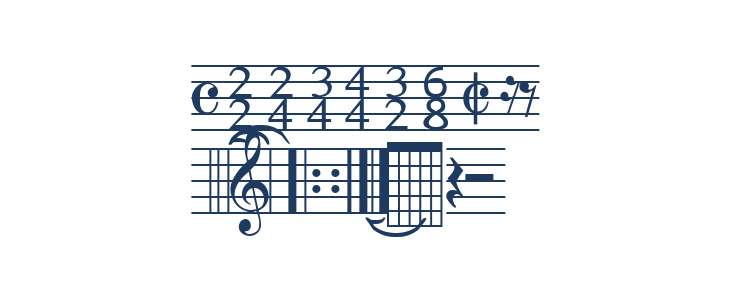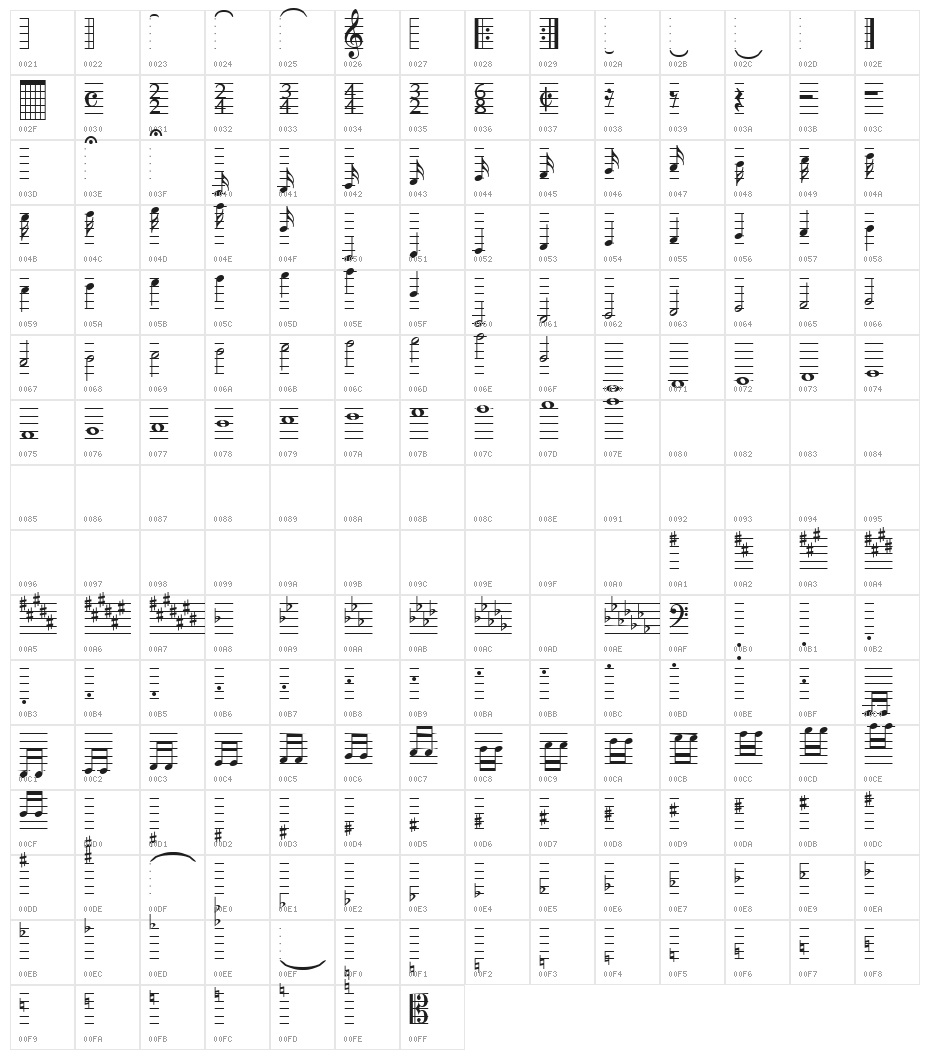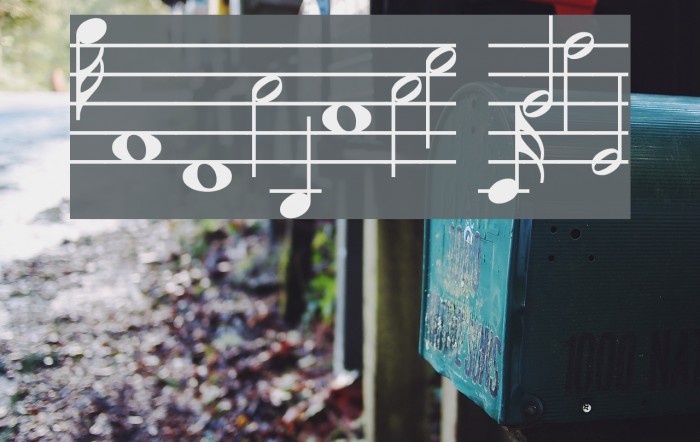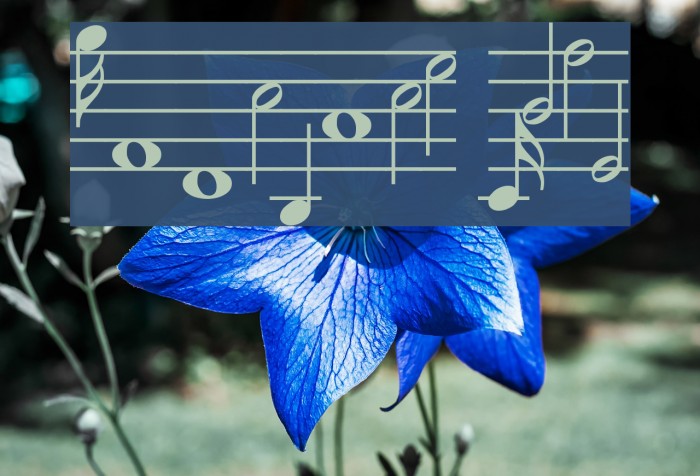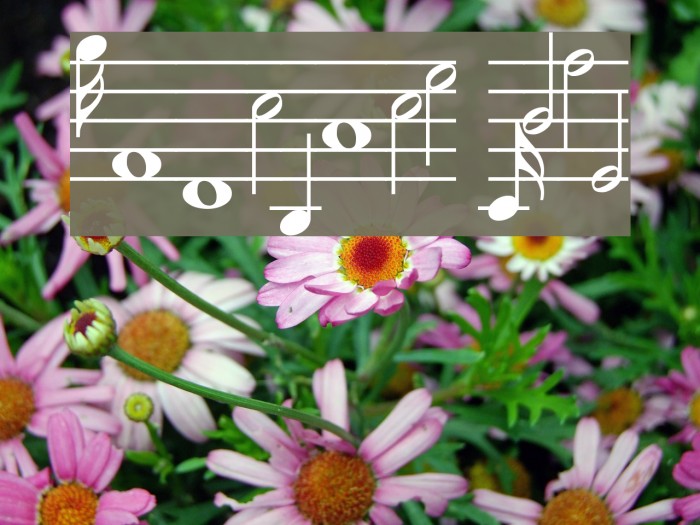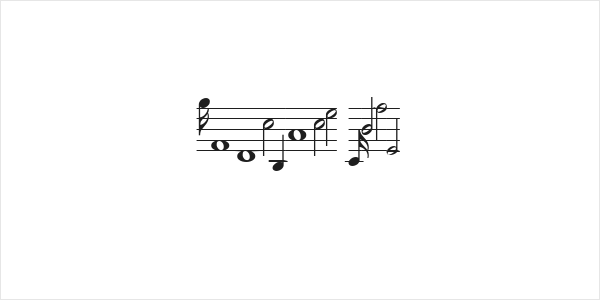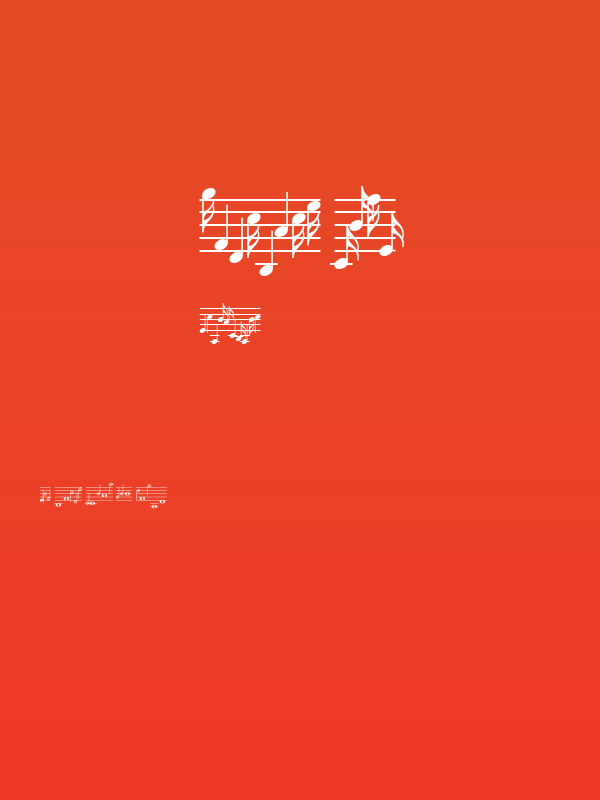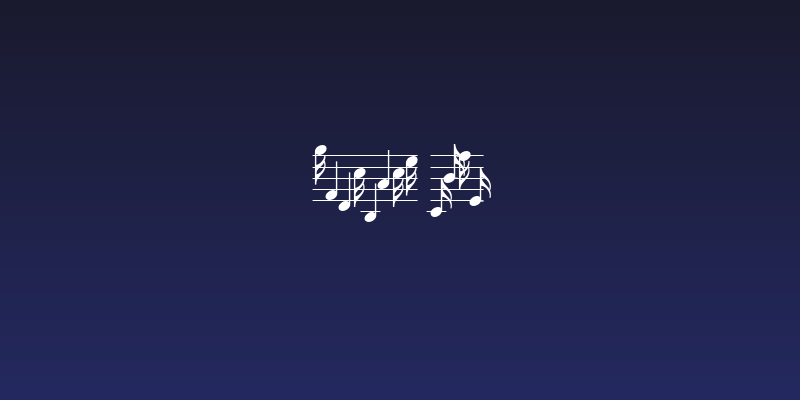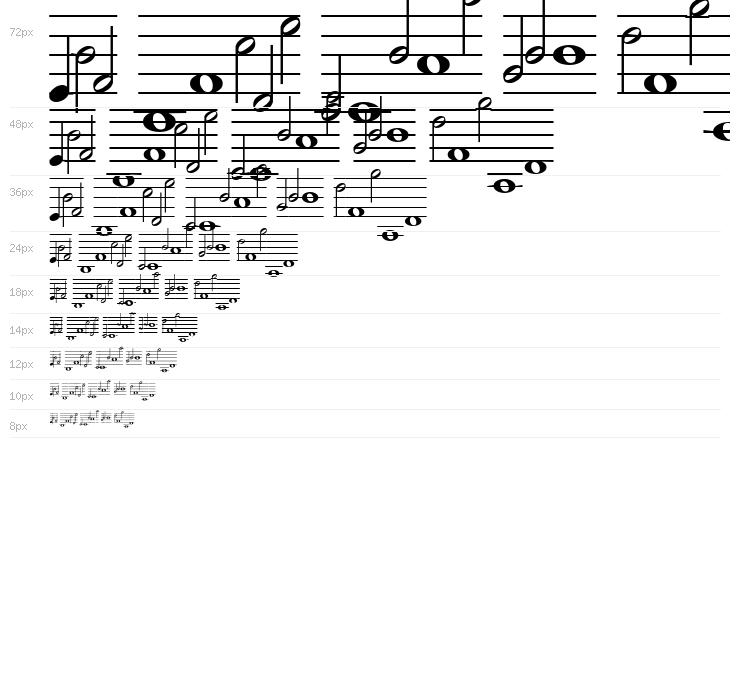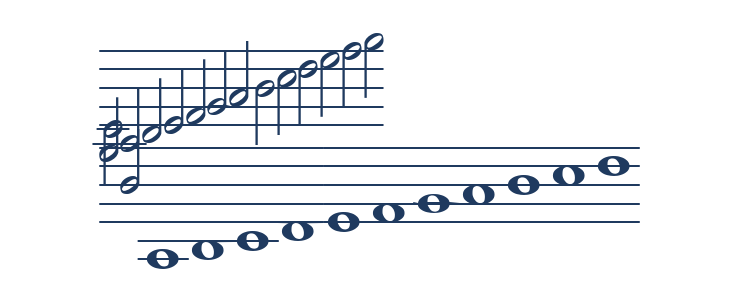
MusiQwik Bold Font
MusiQwik Bold Description
A specialized music notation font featuring bold, clear musical symbols such as notes, clefs, time signatures, and tablature grids. The glyphs are highly legible and designed for use in sheet music and educational materials.
| Overall Style | Functional, Educational, Decorative |
| Use Case | Music notation, Educational resources, Instructional books |
| Proposed Projects | Sheet music publishing, music education materials, chord charts, music theory worksheets. |